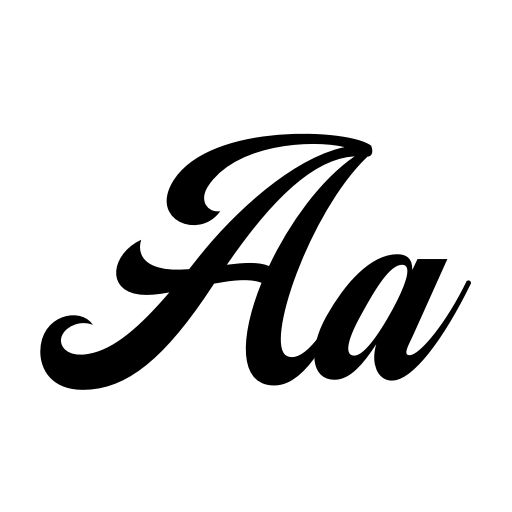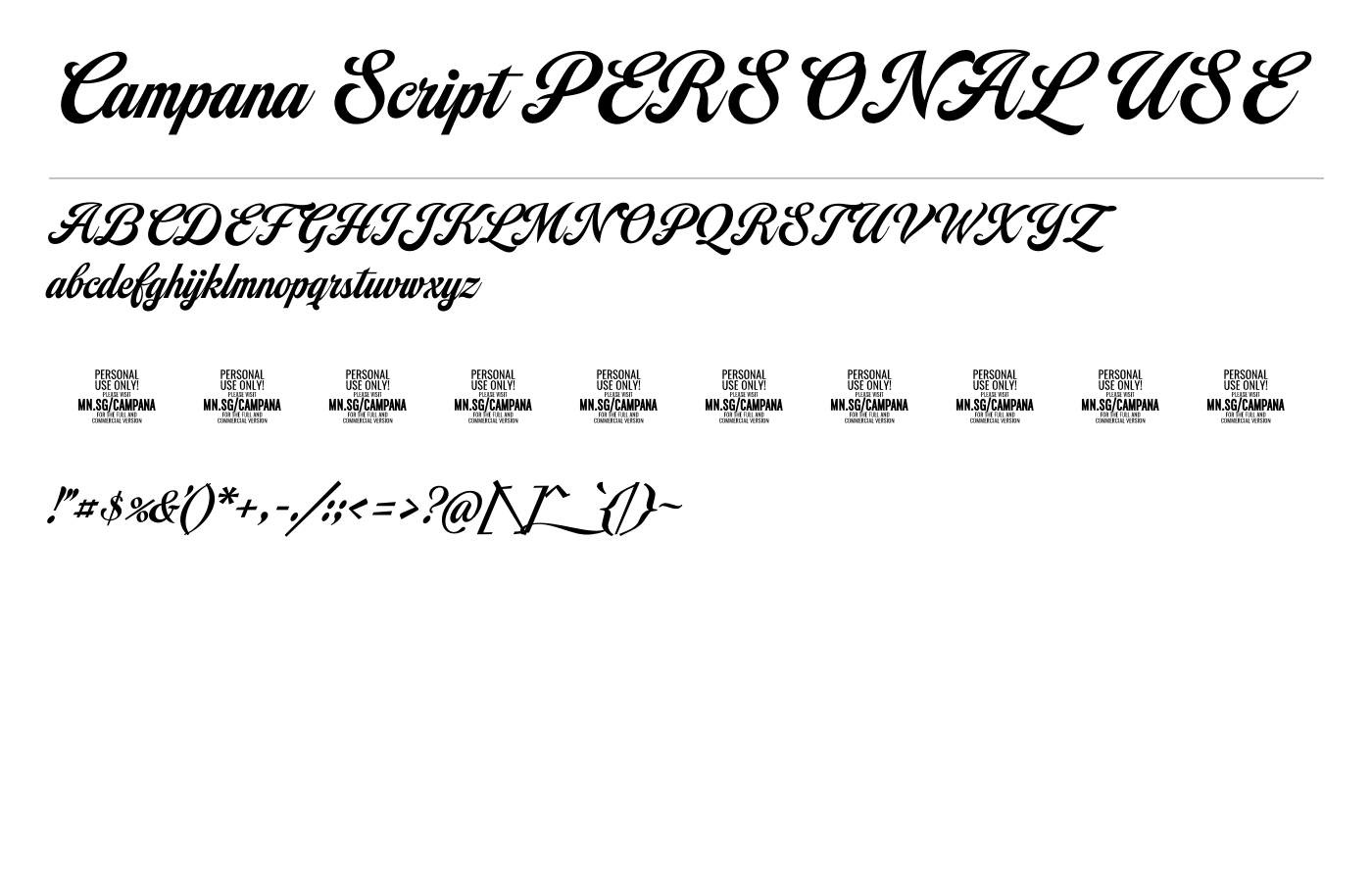
Campana Script is an elegant and flowing script font with a classic, handwritten feel. Its smooth, cursive letterforms, moderate contrast, and decorative swashes make it perfect for invitations, branding, and any design that aims to convey sophistication and personal charm. This font shines in headlines and logos where a graceful, refined touch is needed.
Campana Script PERSONAL USE Font
About Campana Script PERSONAL USE Font